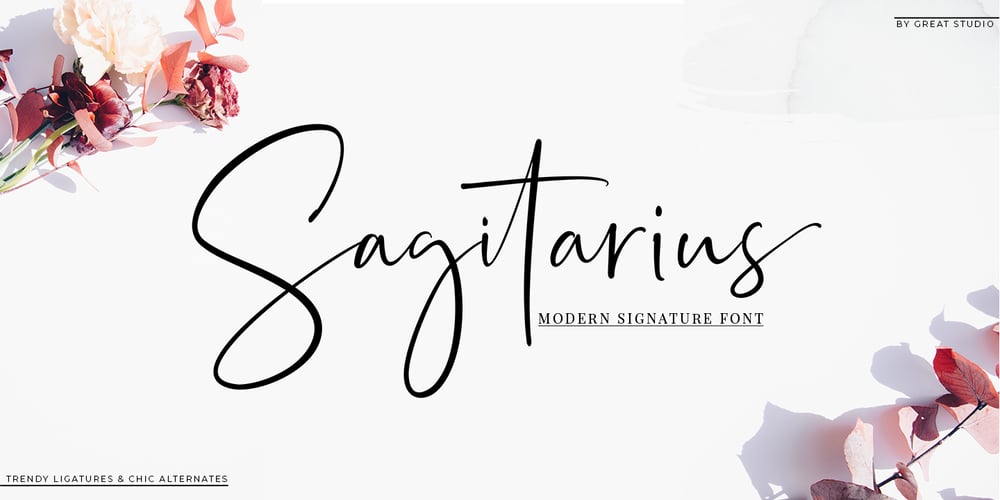
Sagitarius Signature Font Font Family was designed by Mulkan Nazir and published by Great Studio. Sagitarius Signature Font contains 1 styles and family package options. Sagitarius is a unique, elegant and modern handwriting font. that looks like a signature, this font is intentionally made with unique and alternating ligatures. This style of hand display makes it perfect for use in all your design projects whether it’s logo, label, packaging design, blog title, poster, wedding designs, social media posts, Instagram design, etc. Multiple Language Support: ŠÀÁÂÃÄÅÆÇÈÉÊËÌÍÎÏŸŽÐÑÒÓÔÕÖØÙÚÛÜÝßàáâãäåæçèéêëìíîïñòóôõöøùúûêýÿŒœšž I hope you enjoy this font. Thank you for your purchase!